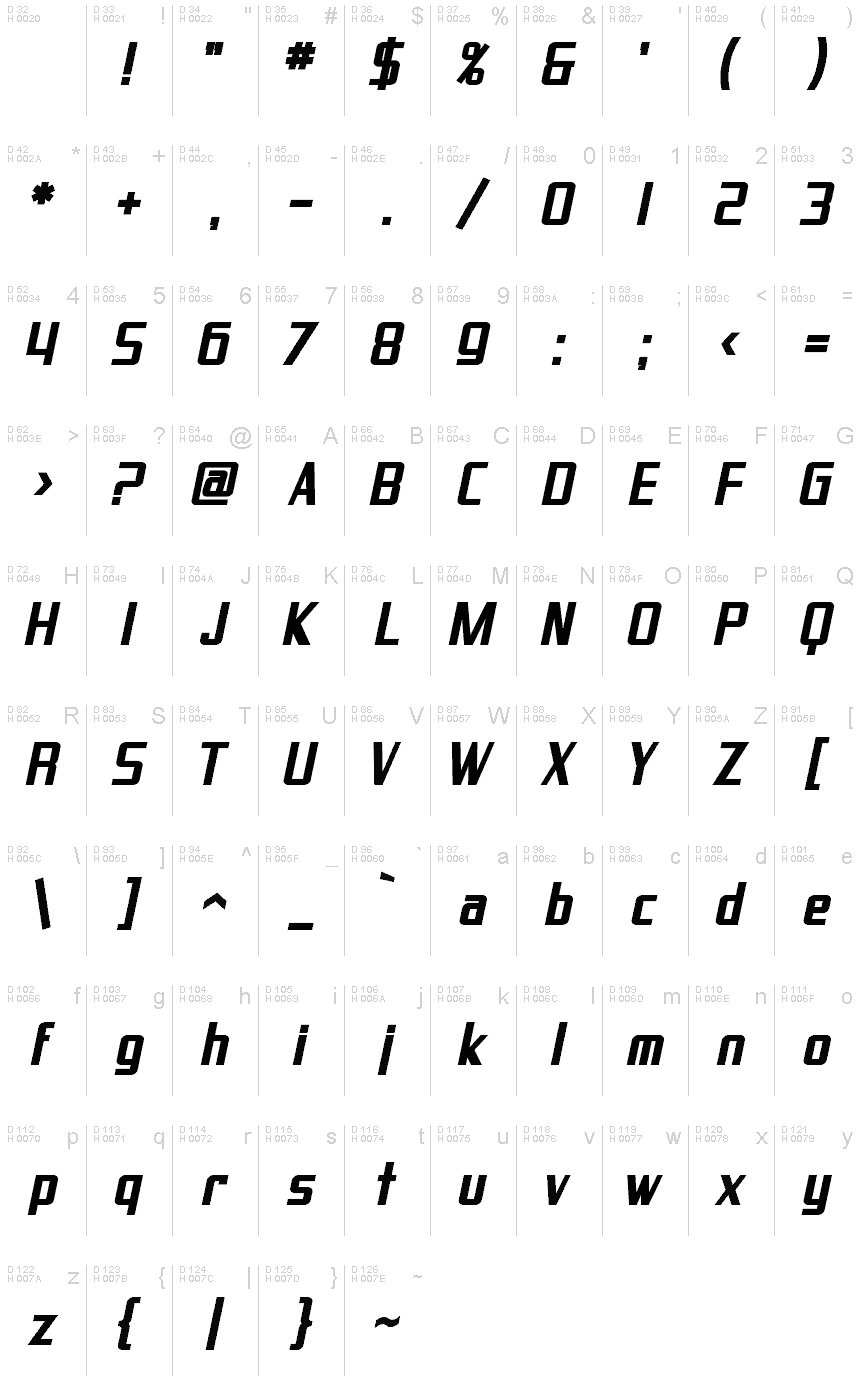
SF Proverbial Gothic Bold Oblique
SF Proverbial Gothic Bold Oblique emerges as a striking choice for designers seeking to infuse their projects with a modern, techno vibe. Crafted by ShyFonts Type Foundry, this member of the SF Proverbial Gothic family showcases a semi-bold weight that commands attention without overpowering the design landscape.
The style exudes a sleek and futuristic feel, perfect for digital and entertainment industries looking for a font that resonates with cutting-edge aesthetics. The oblique slant adds dynamism to the text, suggesting movement and progressiveness which could be ideal for branding, tech start-ups, or innovative advertising campaigns.
Moreover, its clean lines and geometric form make it exceptionally readable at various sizes, ensuring versatility across print and screen media. Whether it's used in bold headlines or as an accent font for special sections of content, SF Proverbial Gothic Bold Oblique is poised to elevate creative endeavors with its distinct presence and contemporary flair.
The style exudes a sleek and futuristic feel, perfect for digital and entertainment industries looking for a font that resonates with cutting-edge aesthetics. The oblique slant adds dynamism to the text, suggesting movement and progressiveness which could be ideal for branding, tech start-ups, or innovative advertising campaigns.
Moreover, its clean lines and geometric form make it exceptionally readable at various sizes, ensuring versatility across print and screen media. Whether it's used in bold headlines or as an accent font for special sections of content, SF Proverbial Gothic Bold Oblique is poised to elevate creative endeavors with its distinct presence and contemporary flair.